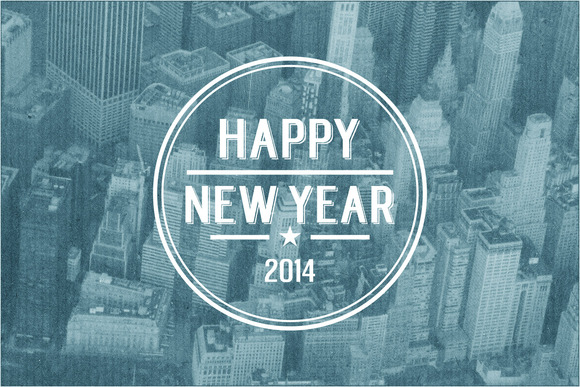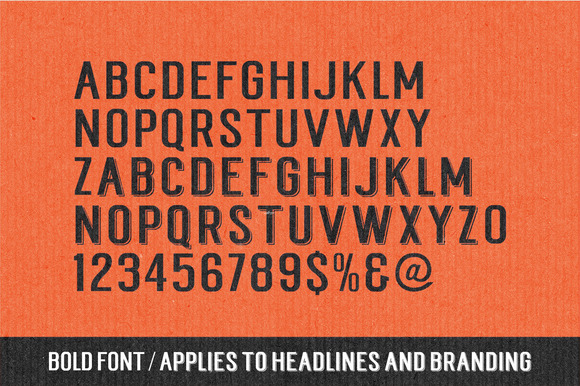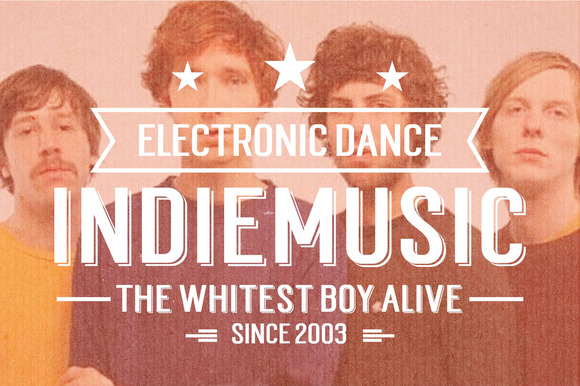
Introducing Grounday Font: A Versatile and Highly Legible Typeface
Are you a designer or crafter looking for a font that can elevate your creative projects? Look no further than Grounday Font, a highly legible sans typeface that is perfect for a wide range of applications. In this article, we’ll take a closer look at the features and benefits of Grounday Font, and explore how it can be used to take your designs to the next level.
What is Grounday Font?
Grounday Font is a unique and versatile typeface that consists of two styles: a solid version and a shadowed version. The solid version is accessed by typing with the uppercase keys, while the alternative shadowed version is accessed with the lowercase keys. This means that you can create a range of different effects and visual styles with just one font.
Key Features of Grounday Font
- Highly Legible: Grounday Font is designed to be highly legible, making it perfect for use in a variety of contexts, from headings and titles to body text and captions.
- Bold and Compressed: The font has a bold and compressed style, which makes it perfect for use in designs where you want to make a statement.
- Uppercase Characters Only: Grounday Font features uppercase characters only, which gives it a distinctive and stylish look.
- Two Styles in One: With the solid and shadowed versions, you get two styles in one font, making it incredibly versatile and convenient to use.
Uses for Grounday Font
So, what can you use Grounday Font for? The answer is: almost anything! Here are some ideas to get you started:
- Headings and Titles: Use Grounday Font to create bold and eye-catching headings and titles for your designs.
- Logos and Branding: The font’s bold and compressed style makes it perfect for use in logos and branding materials.
- Invitations and Greeting Cards: Add a touch of style and sophistication to your invitations and greeting cards with Grounday Font.
- T-Shirt Designs: The font’s bold and eye-catching style makes it perfect for use in t-shirt designs.
- Posters and Flyers: Use Grounday Font to create bold and attention-grabbing posters and flyers.
- Labels and Packaging: The font’s clear and legible style makes it perfect for use in labels and packaging materials.
- Book Covers and Brochures: Use Grounday Font to create eye-catching book covers and brochures.
Why Choose Grounday Font?
So, why should you choose Grounday Font for your design projects? Here are just a few reasons:
- Versatility: With its two styles and highly legible design, Grounday Font is incredibly versatile and can be used in a wide range of contexts.
- Style: The font’s bold and compressed style makes it perfect for use in designs where you want to make a statement.
- Convenience: With Grounday Font, you get two styles in one font, making it incredibly convenient to use.
- Legibility: The font’s highly legible design makes it perfect for use in a variety of contexts, from headings and titles to body text and captions.
In conclusion, Grounday Font is a highly legible and versatile sans typeface that is perfect for a wide range of design applications. With its bold and compressed style, two styles in one font, and highly legible design, it’s the perfect choice for designers and crafters looking to elevate their creative projects. Whether you’re creating headings and titles, logos and branding materials, or invitations and greeting cards, Grounday Font is the perfect choice.